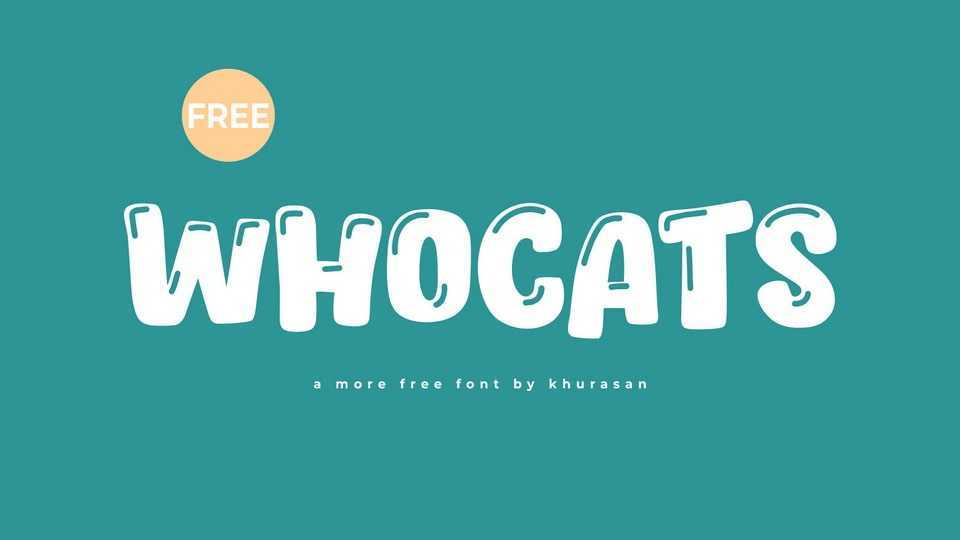
Download Whocats font, a playful and rounded hand-drawn typeface that adds a glossy touch to your designs, radiating a sense of joy and vibrancy. The font is crafted with rounded edges, featuring a friendly appearance that brings a sheen of sophistication to the playful hand-drawn style.